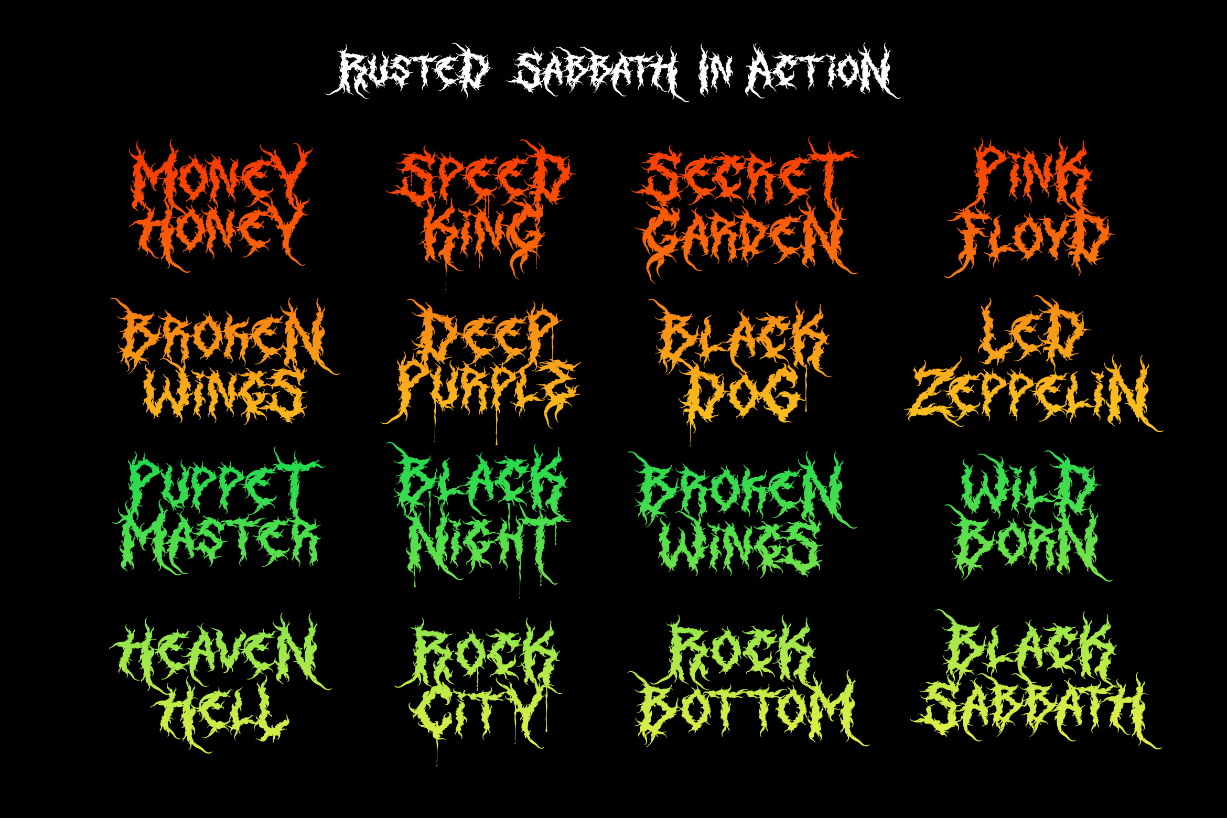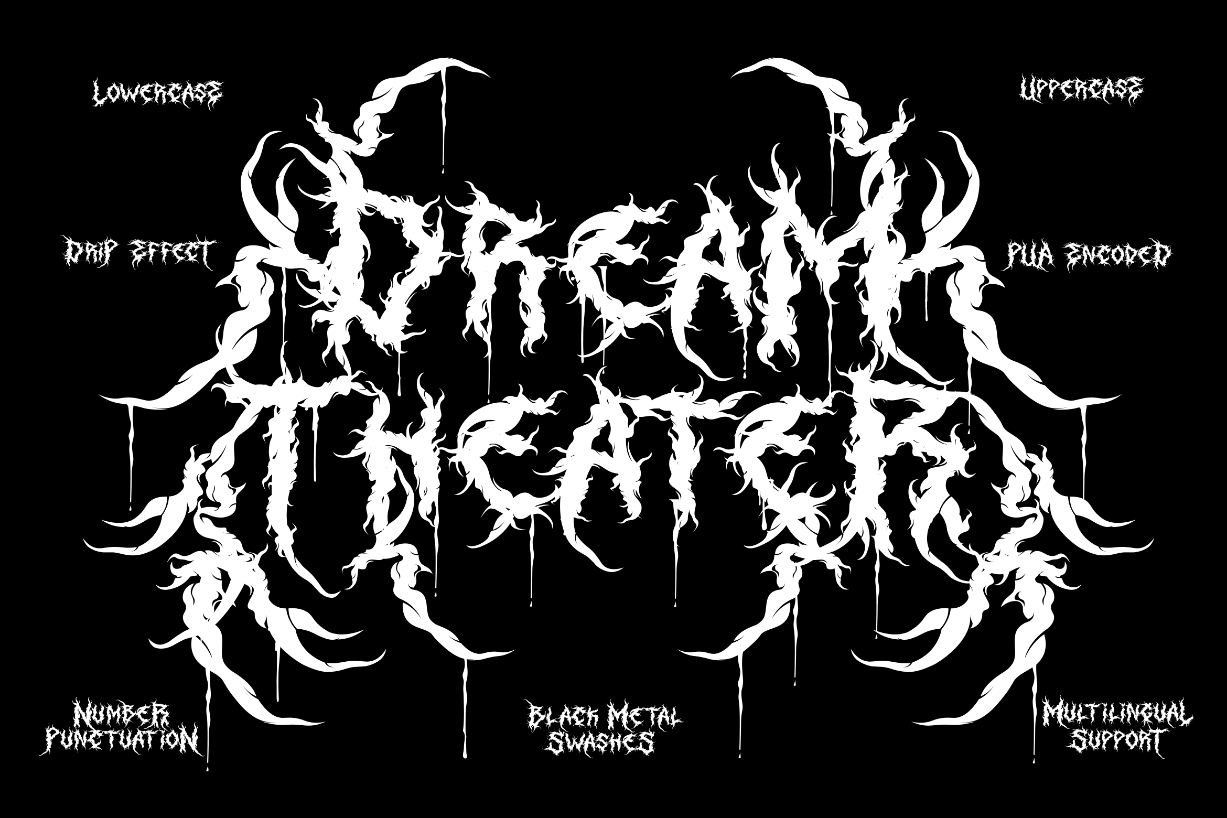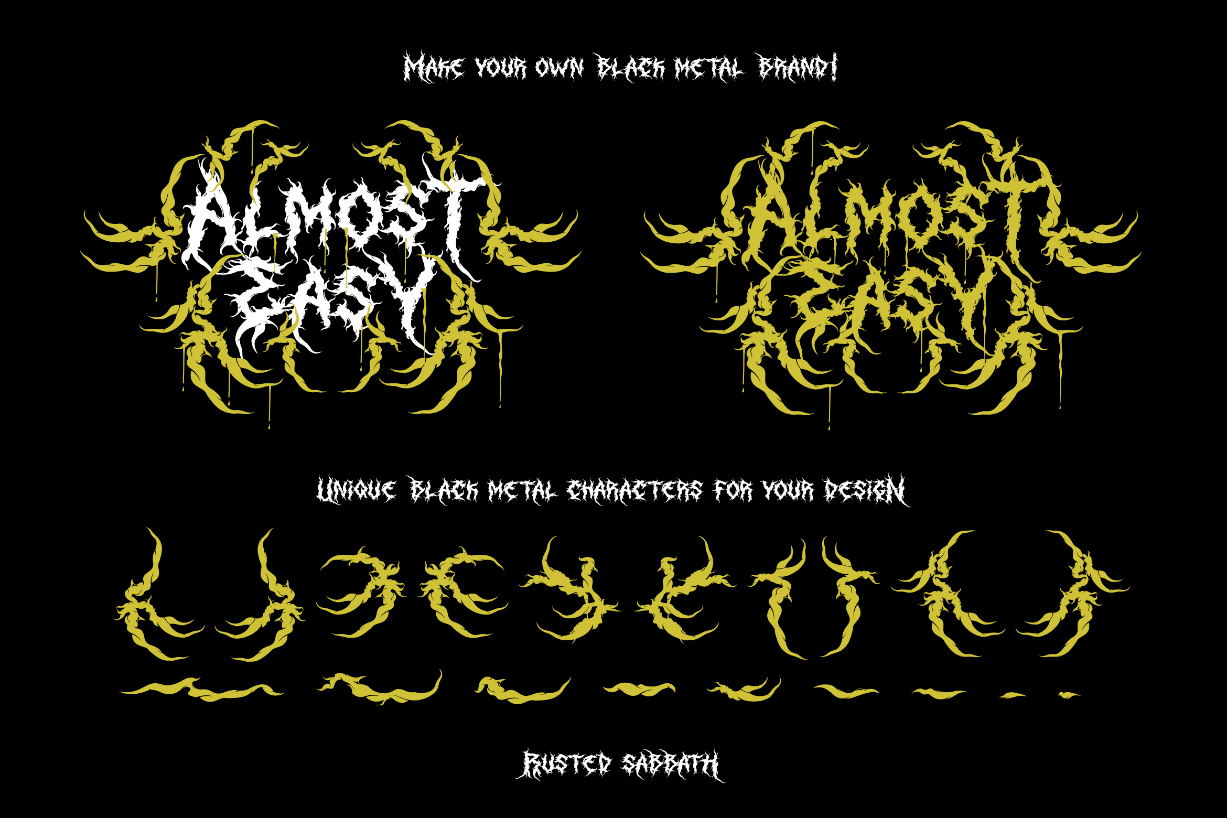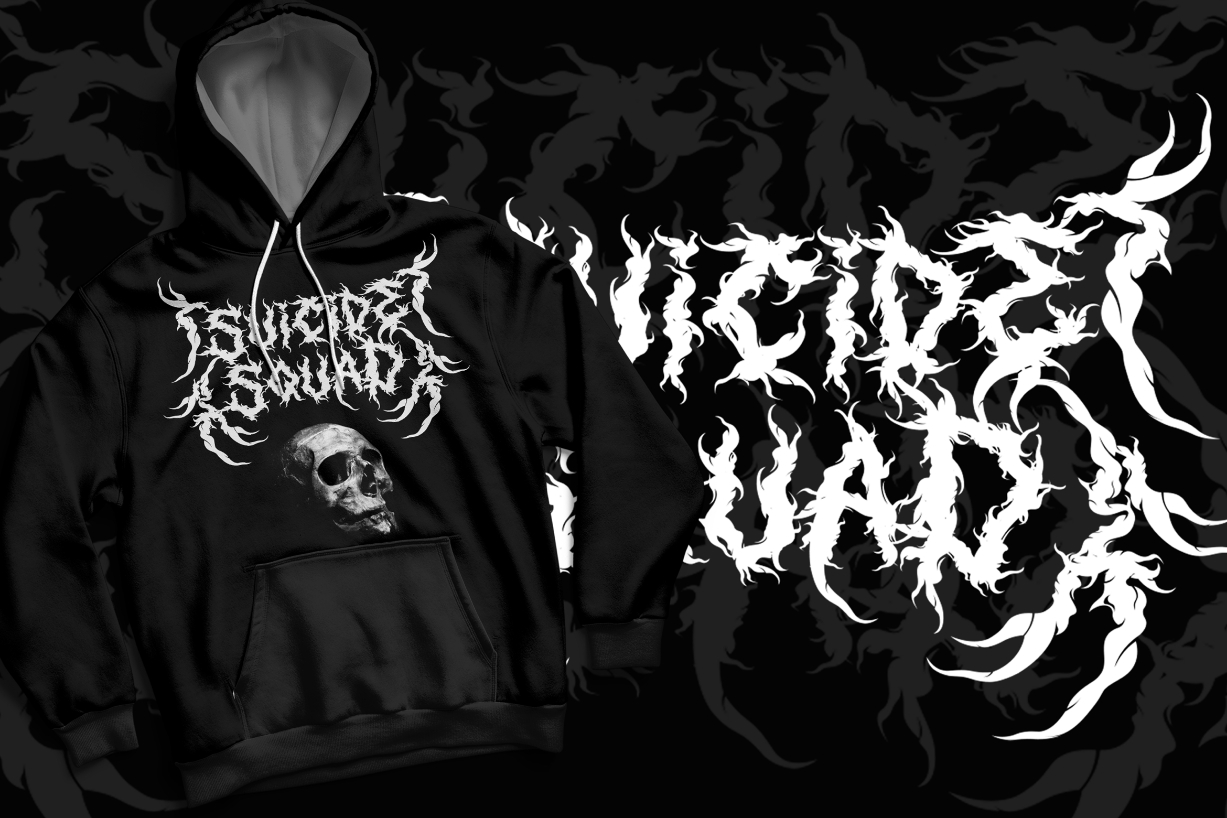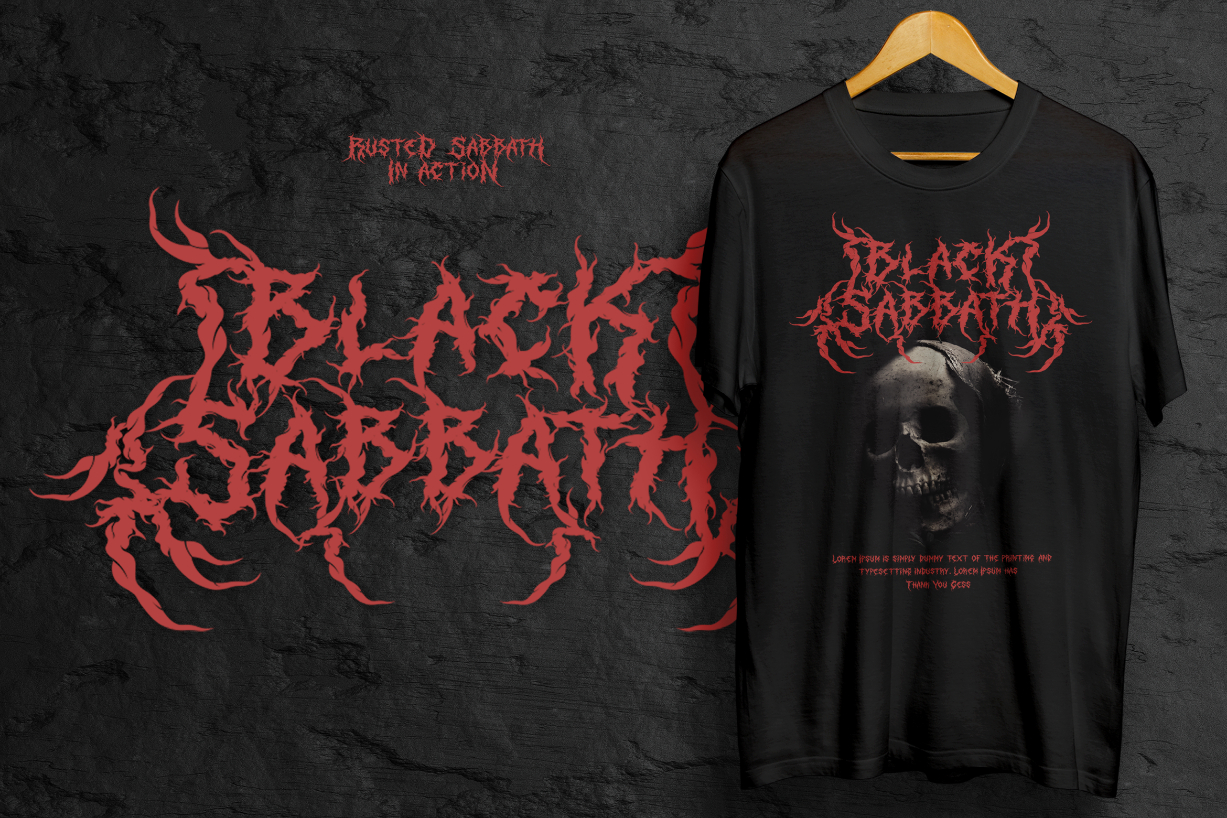
About Rusted Sabbath Font
This savage death metal font can be used for logos or branding and your metal band name. You can immediately make your band or brand logo name with the help of this unique blackletter font. Combine it with the death metal ornaments and make your cool metal design with ease!
This black metal typeface is perfect for logotypes, t-shirts, vintage badges, branding, packaging, posters, clothing brands, horror movies, album covers, and many more!
Rusted Sabbath is PUA encoded which means you can access all the glyphs and swashes with ease!